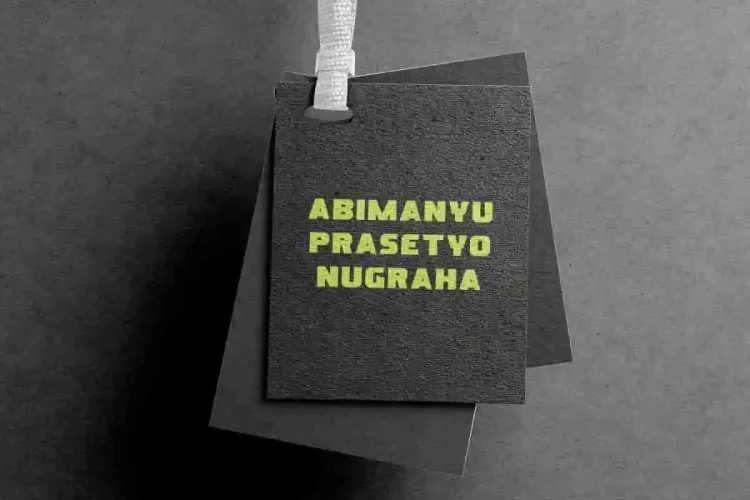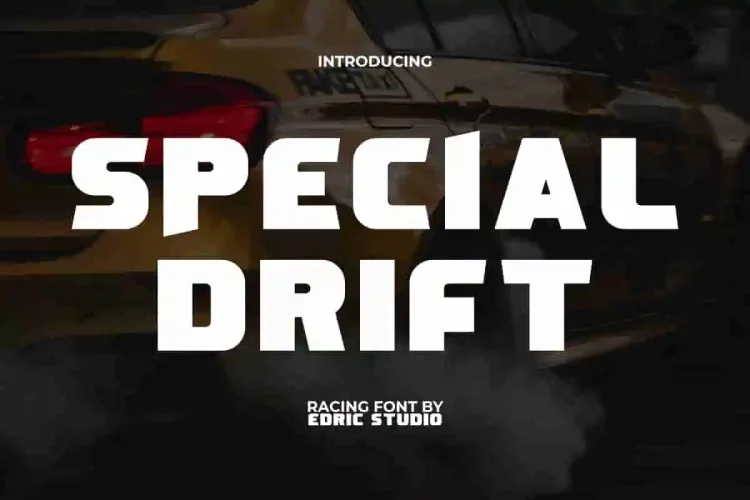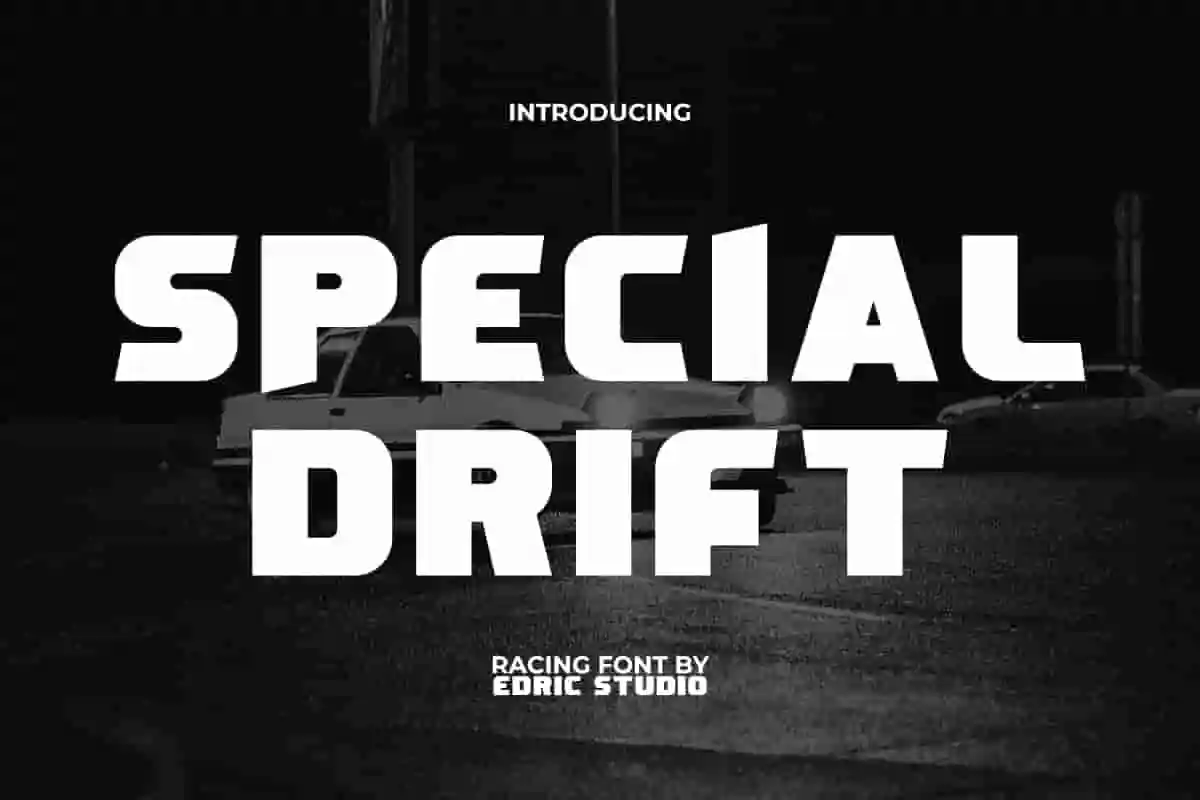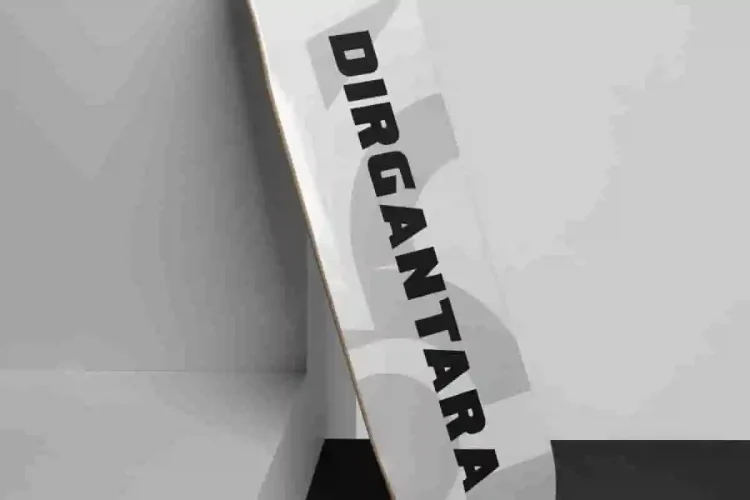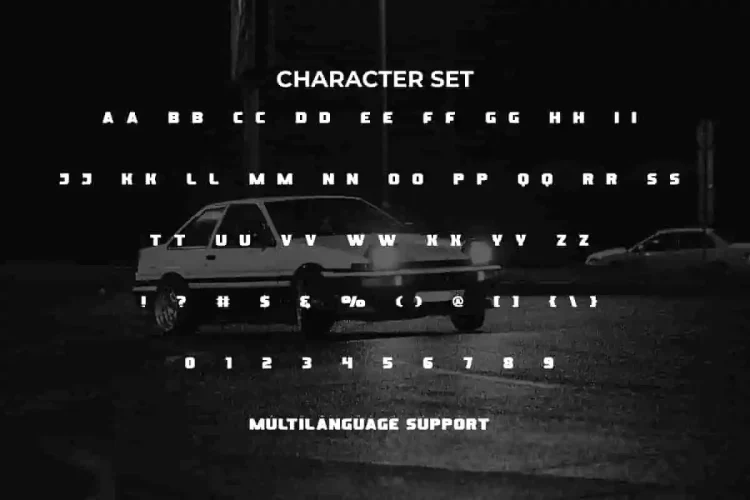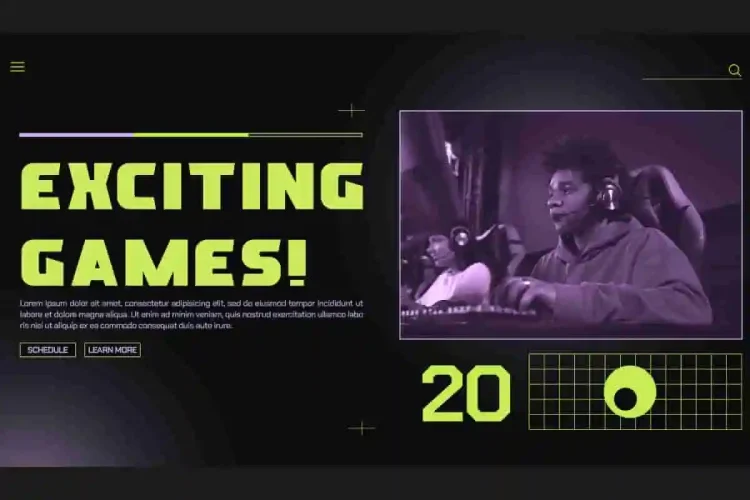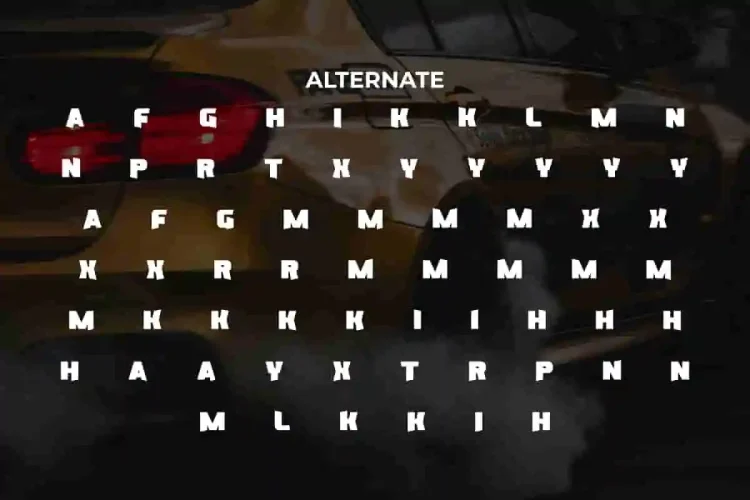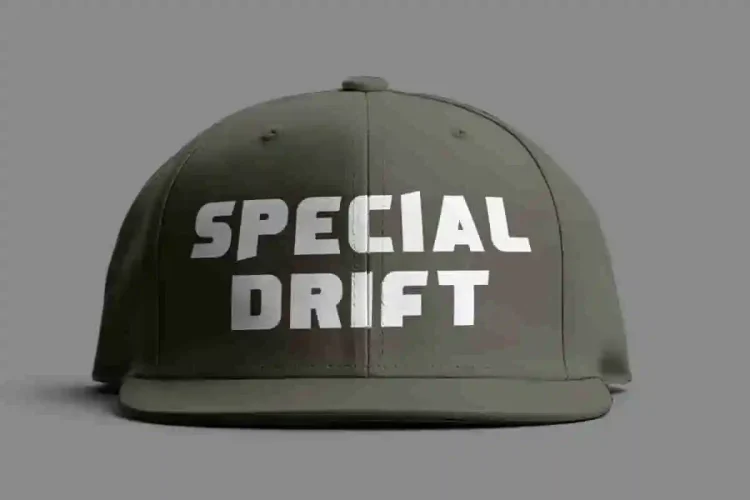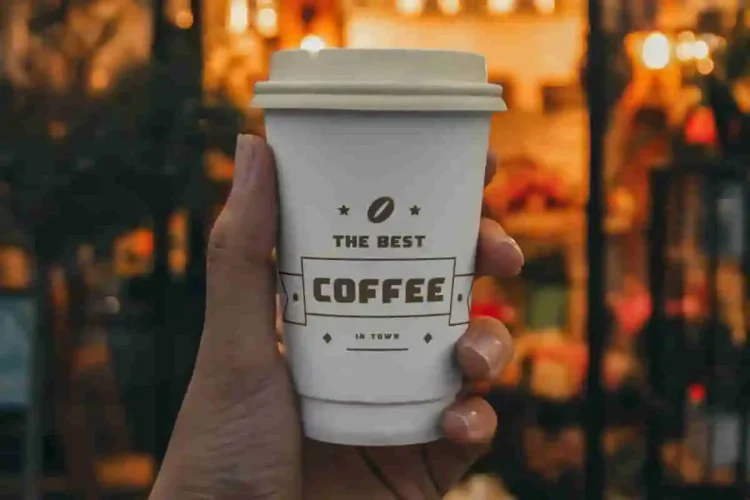
Special Drift Font is a bold but fun racing display font with interesting contrast and proportions designed in large sizes with supporting additional characters so that it looks dominant on anything. Perfect for banners, billboard, business card, headers, headline, label tag, mockup, poster, product packaging, screen print, stationery, sticker, template, title, website, and much more.
Special Drift Font includes a complete set of ALL CAPS for both Uppercase and Lowercase letters, Numbers, Punctuation, Symbols and Alternate. This is a bold contemporary typeface with sharp angles presenting a futuristic racing typeface that is truly different but still legible. Use it for accessories and merchandise, clothing brand, coffee shop, game developers, photography, race events, web designer, and many more.